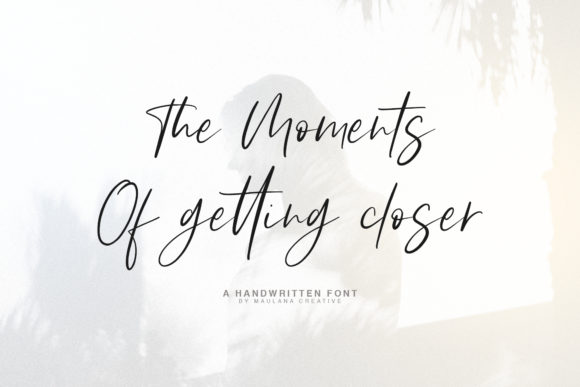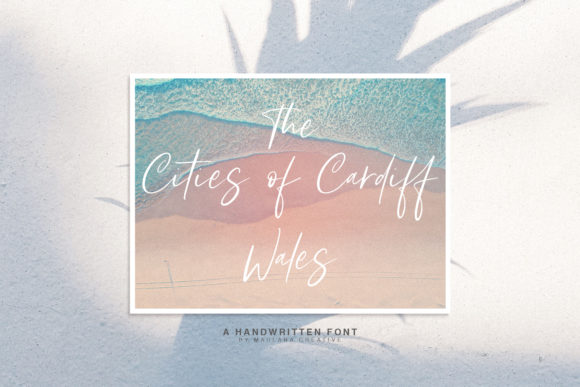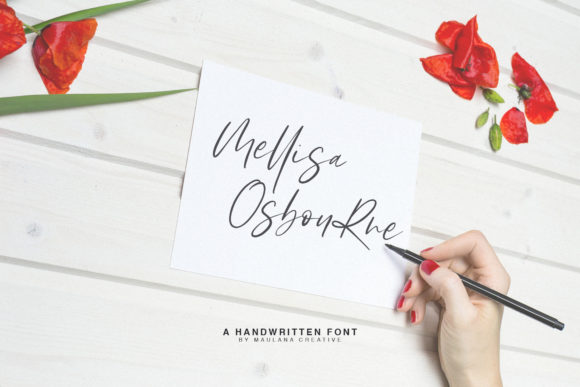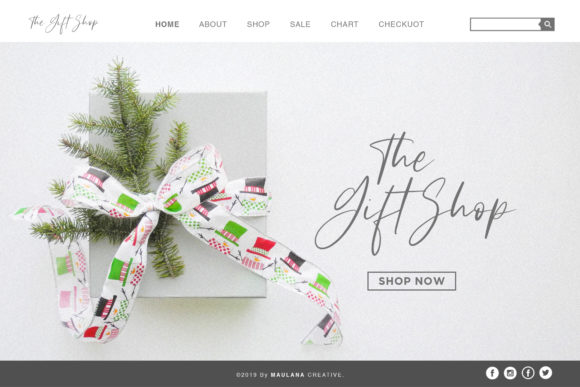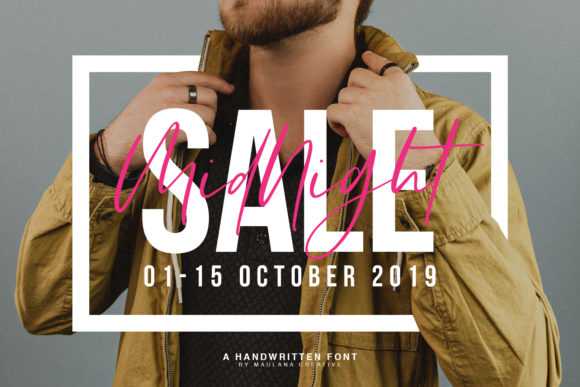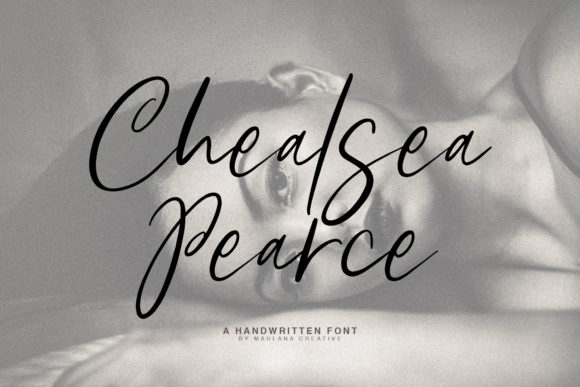
The Quest for the Perfect Hand-Crafted Font: Discovering Cardiff
I still remember the frustration of working on a project, determined to give it that authentic, hand-crafted feel. As a designer, I’ve been there – scrolling through font libraries, searching for that one script that would make my design pop. My client wanted a logo that looked like it was written with love and care, but I was struggling to find the right fit. That’s when I stumbled upon Cardiff, a stunningly light script that would easily give my designs the authentic, hand-crafted feel I was looking for.
A First Impression: What I Love About Cardiff
Cardiff immediately caught my attention with its elegant, flowing lines and delicate appearance. Here are a few things that I love about this beautiful script:
• ✨ Effortless elegance: Cardiff has a way of adding a touch of sophistication to any design.
• ✅ Highly legible: Even at smaller font sizes, Cardiff remains clear and easy to read.
• 💫 Versatile: Whether I’m designing a logo, a wedding invitation, or a packaging label, Cardiff seems to fit right in.
The Not-So-Perfect: A Few Quirks
While Cardiff is an amazing font, it’s not without its limitations. Here are a few things to keep in mind:
• ⚠️ Limited use in body text: While Cardiff is beautiful, it’s not the best choice for longer blocks of text. Its delicate nature can make it difficult to read in large quantities.
• 🤔 Some letter combinations: Occasionally, certain letter combinations can feel a bit awkward or unbalanced.
How to Use Cardiff: A Practical Guide
Now that I’ve fallen in love with Cardiff, I want to share some practical tips on how to use it in your designs.
4. Experiment with OpenType features like ligatures and stylistic alternates to add some personality to your text.
4. Dive into the glyphs panel to explore alternative characters and create unique combinations.
The Story Behind Cardiff: Designer Inspiration
While the exact origins of Cardiff are unclear, it’s easy to imagine a designer sitting in a quaint Welsh café, inspired by the rolling hills and rugged coastline. Perhaps they sought to capture the essence of Cardiff, the capital city of Wales, in a font – elegant, yet approachable.
Is Cardiff suitable for body text? No, Cardiff is best used for headings, titles, and short phrases due to its delicate nature.
Does Cardiff support OpenType features? Yes, Cardiff supports OpenType features like ligatures and stylistic alternates, which can enhance your designs.